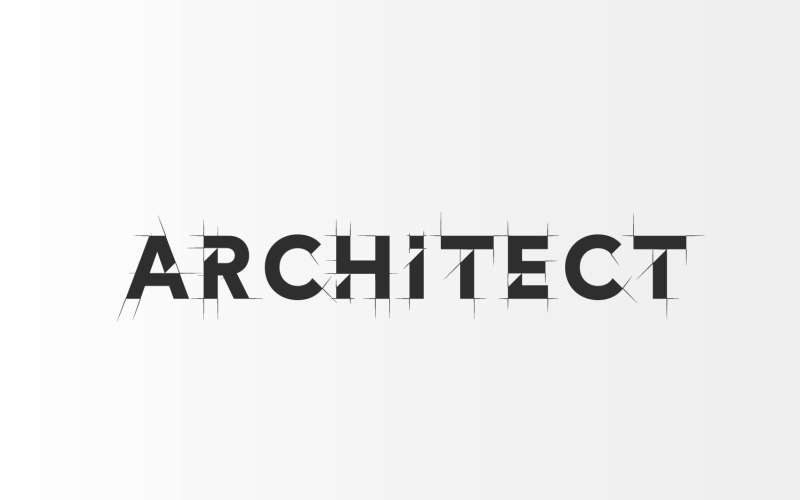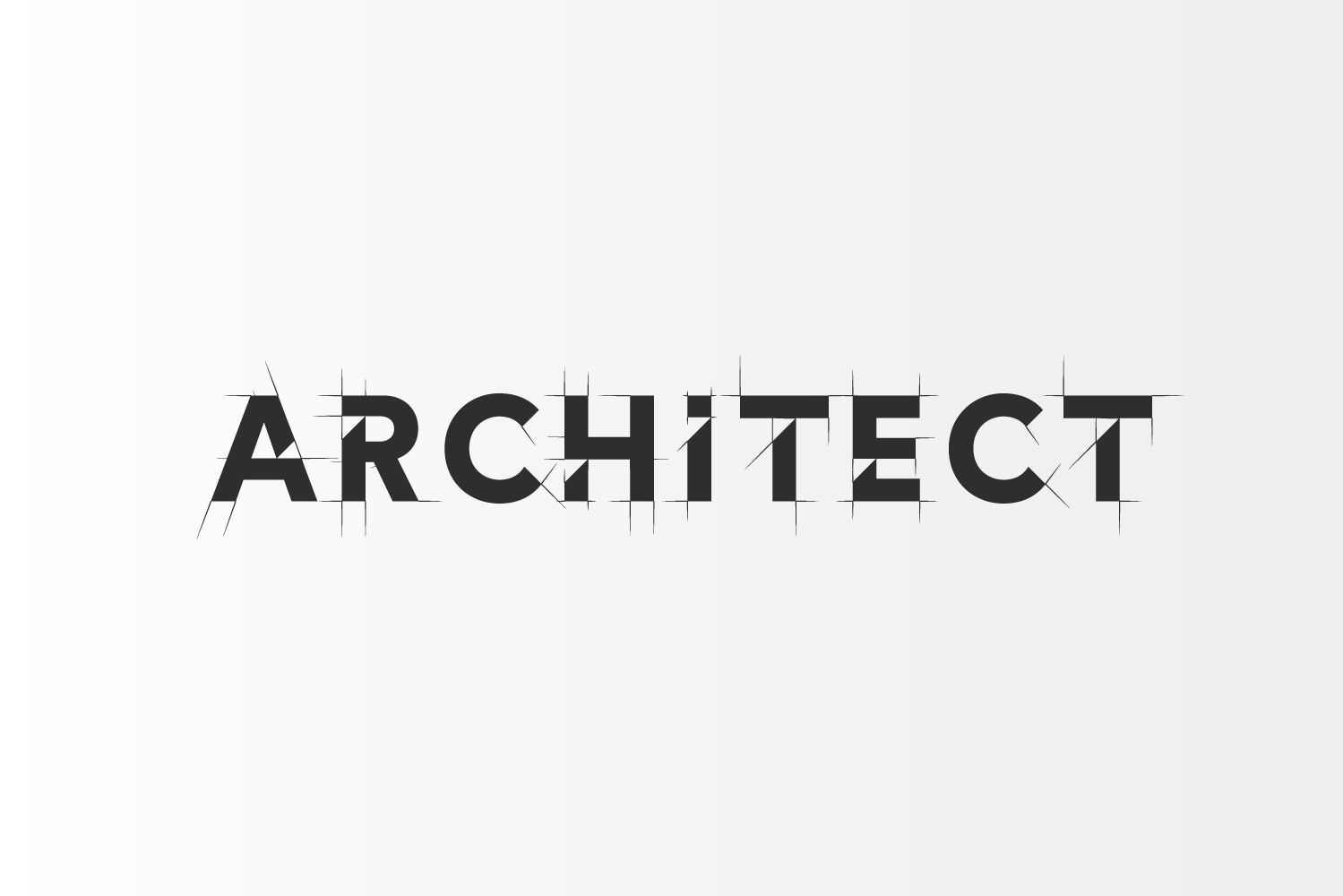
Architect Blueprint Font for Logo and Headline
With clean lines and sharp angles, this font captures the essence of architectural design, making it an ideal choice for logos, brochures, websites, and more. Its timeless style and contemporary appeal make it a versatile and essential addition to any designer's toolkit. Download now and elevate your designs to new heights.